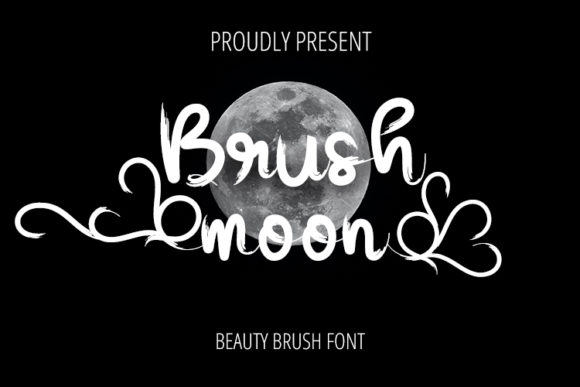
The Brush Moon Font: A Designer’s Dream Come True
I’ll never forget the moment I stumbled upon the Brush Moon font. I was working on a project for a client who wanted a bold, yet elegant look for their branding. I had spent hours scouring the internet for the perfect font, but nothing seemed quite right. That was until I saw Brush Moon – a beautiful, thick lettered and flowing handwritten font that instantly caught my eye. I knew right then and there that I had found the one.
So, what makes Brush Moon so special? Let’s dive into the good stuff!
- ✨ Incredibly versatile: Brush Moon can be used for a wide range of design projects, from branding and logos to social media graphics and invitations.
- ✅ Easy to read: Despite its bold and flowing style, Brush Moon is surprisingly easy to read, even in smaller sizes.
- 💕 Emotional connection: This font has a way of evoking emotions and adding a personal touch to your designs.
Of course, no font is perfect, and Brush Moon is no exception. Here are a few quirks to keep in mind:
- 🤔 Limited use in body text: While Brush Moon is amazing for headings and titles, it may not be the best choice for longer body text.
- ⚠️ Kerning issues: As with any font, you may need to adjust the kerning to get the perfect spacing between letters.
The Story Behind Brush Moon
Brush Moon was designed with love and care by a talented typographer who wanted to create a font that would inspire creativity and bring a touch of elegance to designs. The font’s flowing style and bold letters are meant to evoke a sense of sophistication and whimsy, making it perfect for a wide range of projects.
- Q: Is Brush Moon suitable for body text?
- A: While Brush Moon is amazing for headings and titles, it’s not recommended for longer body text due to its bold and flowing style.